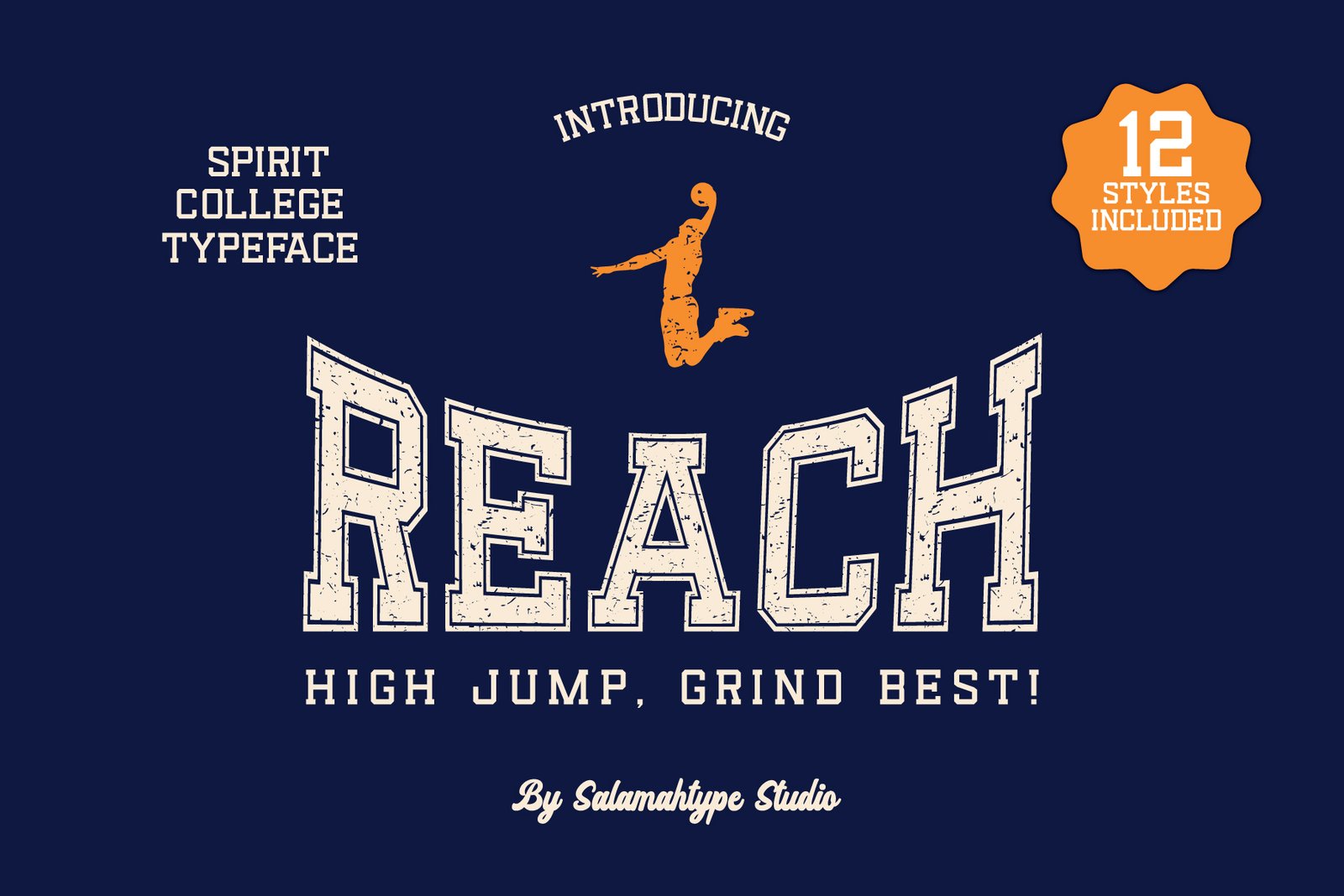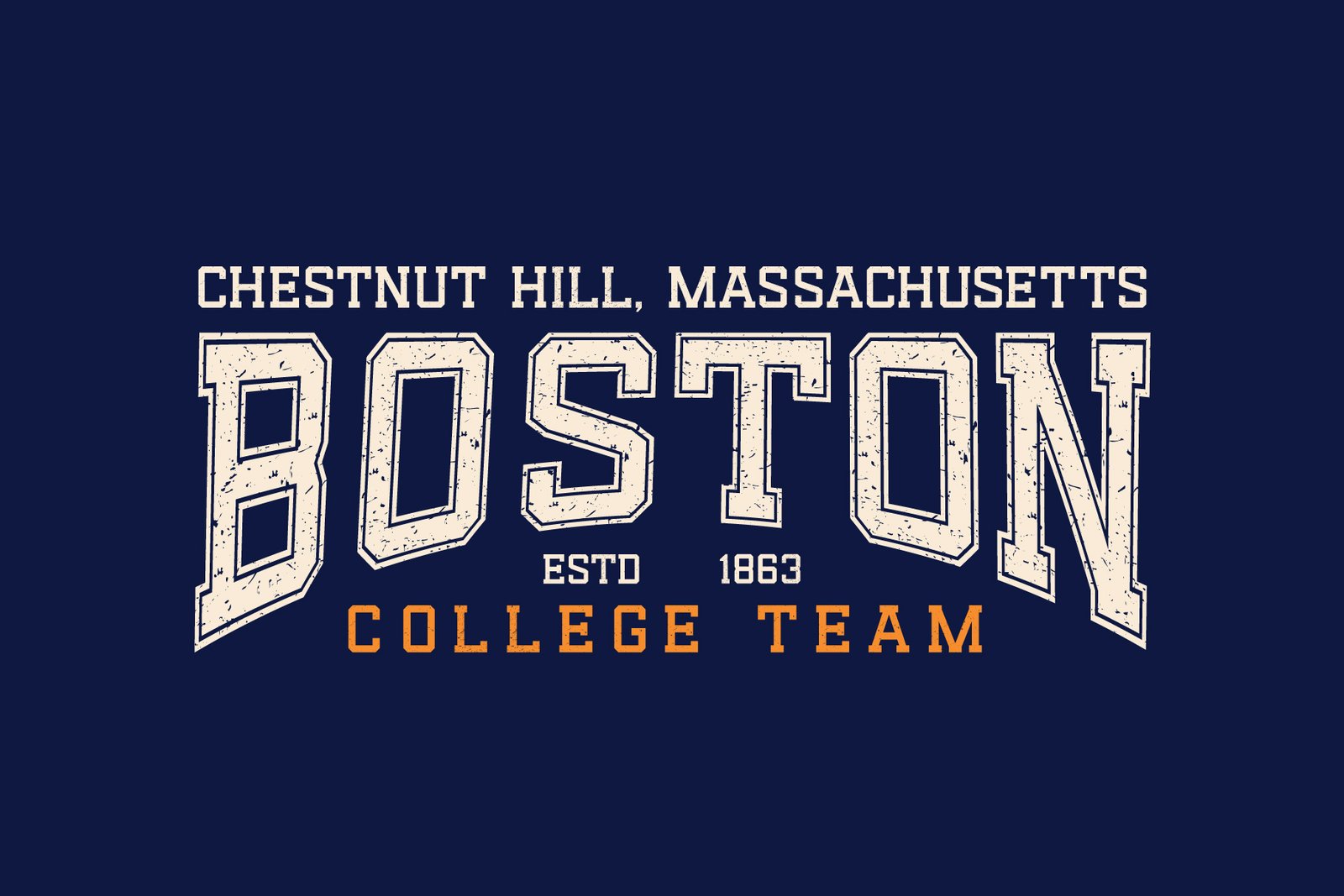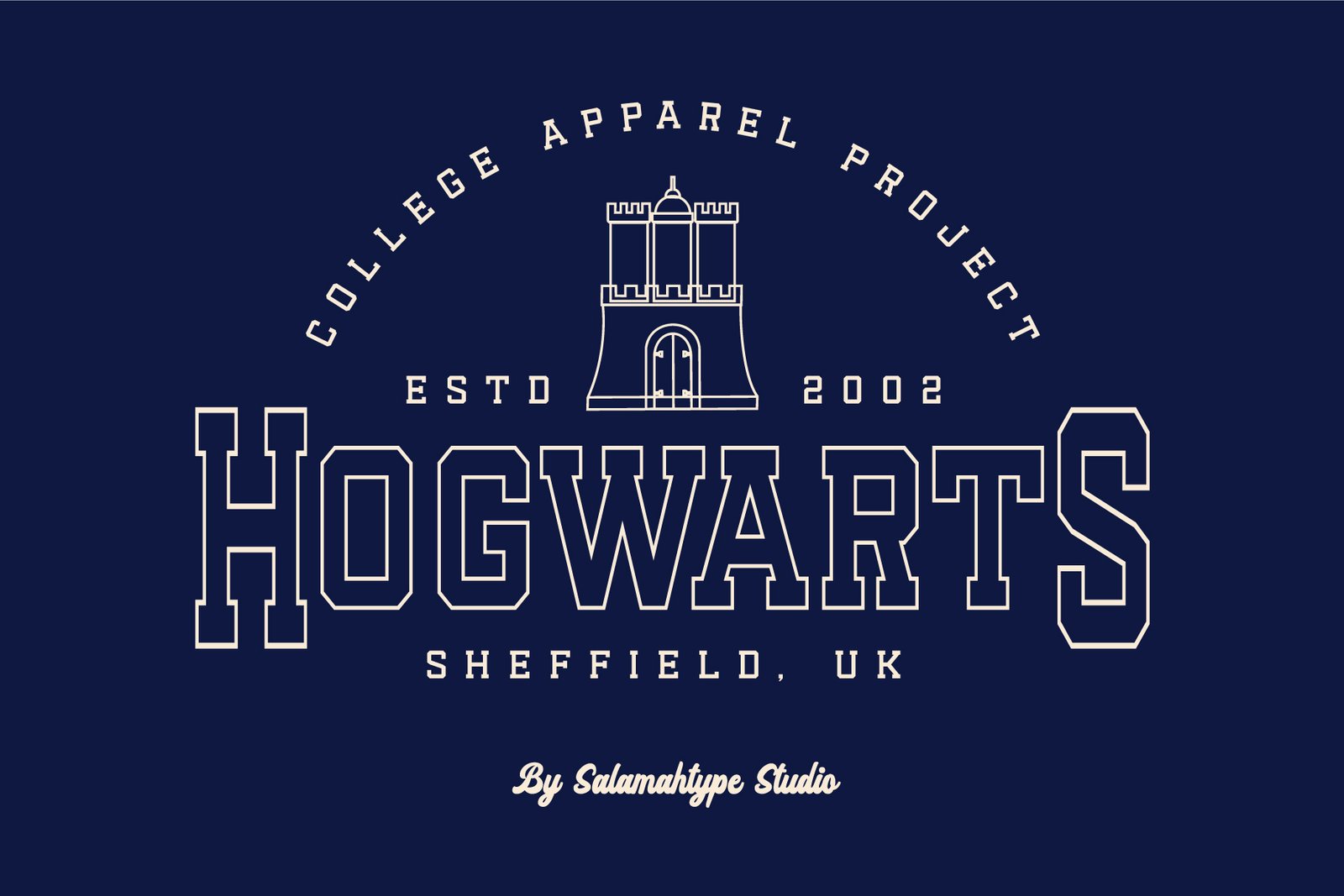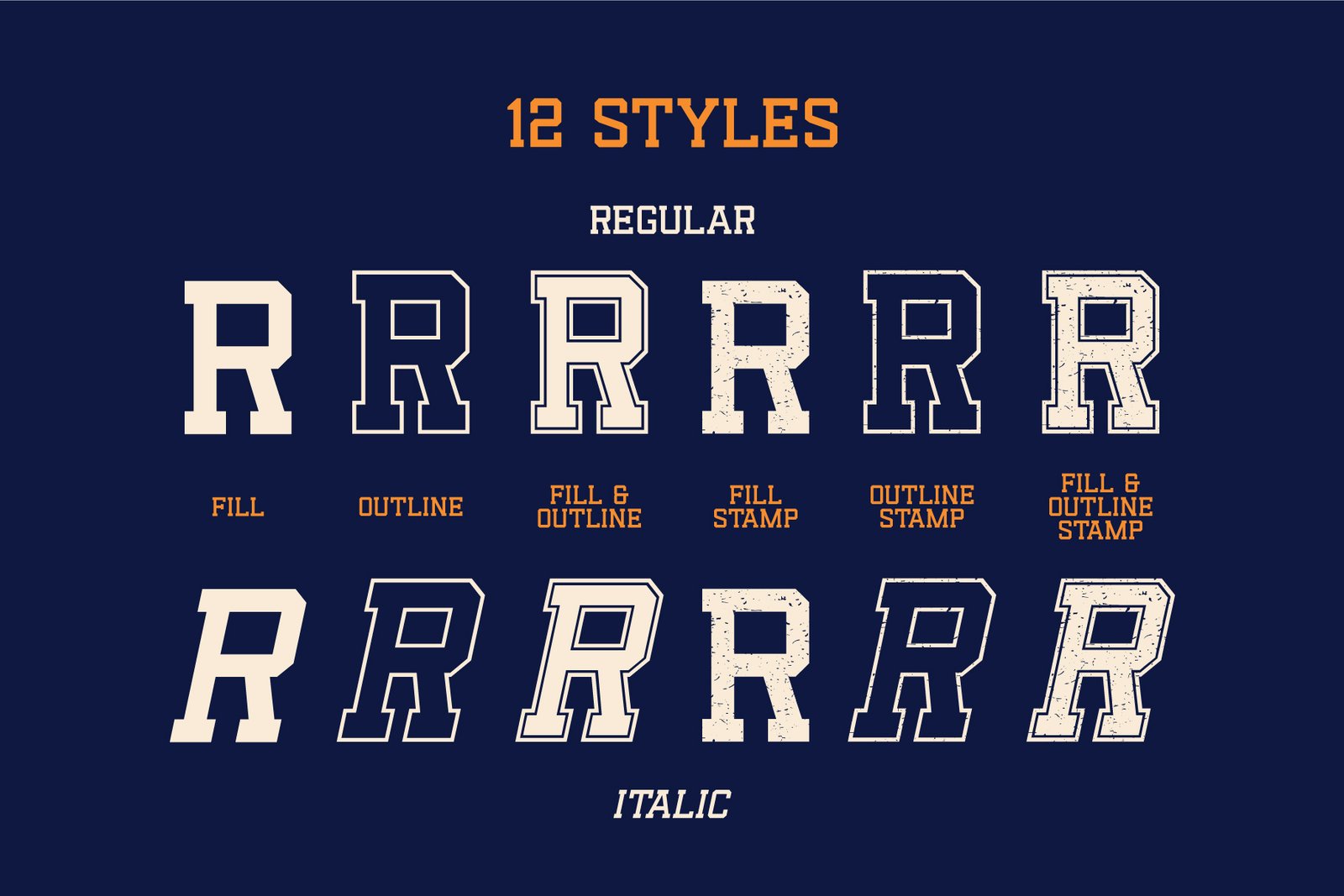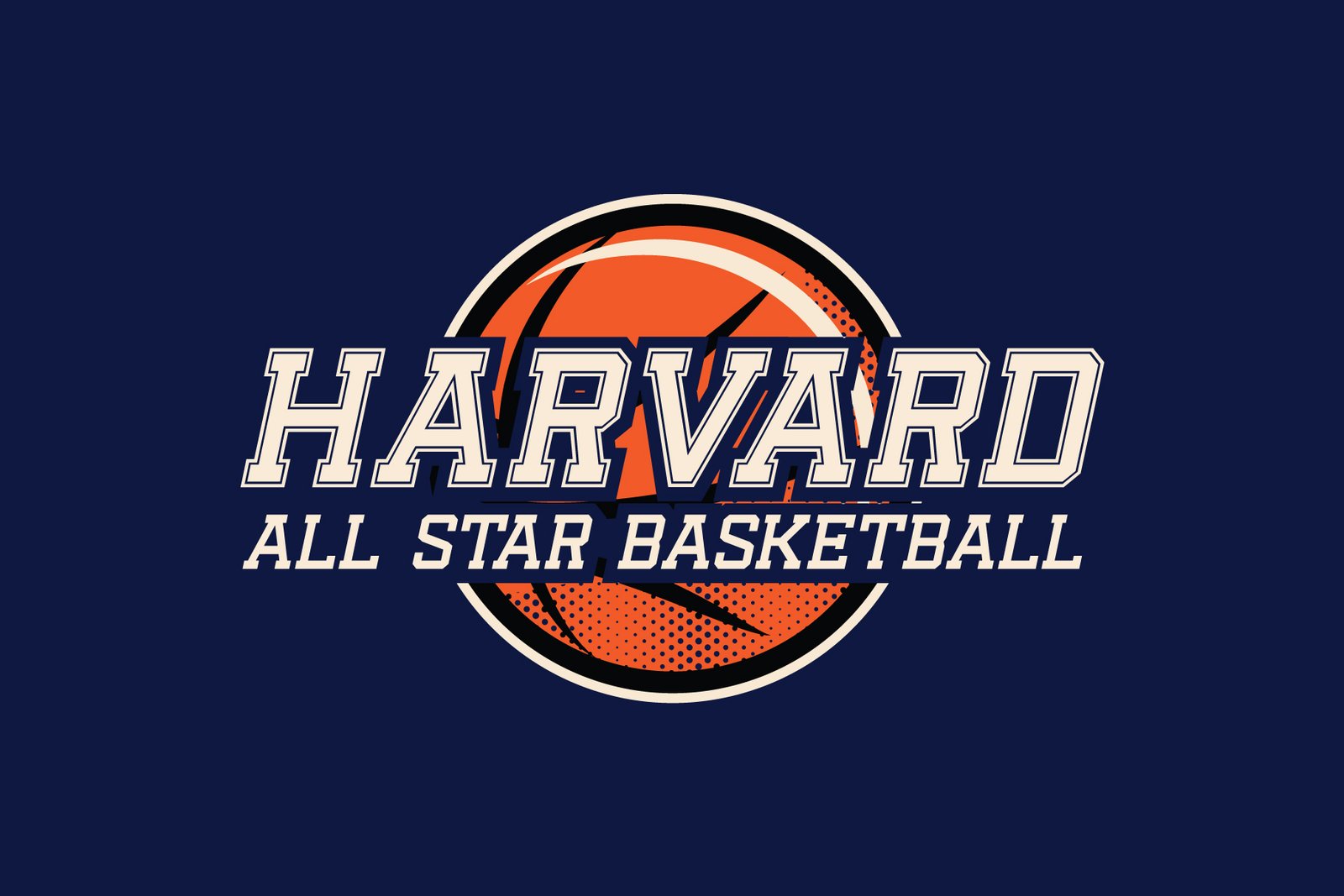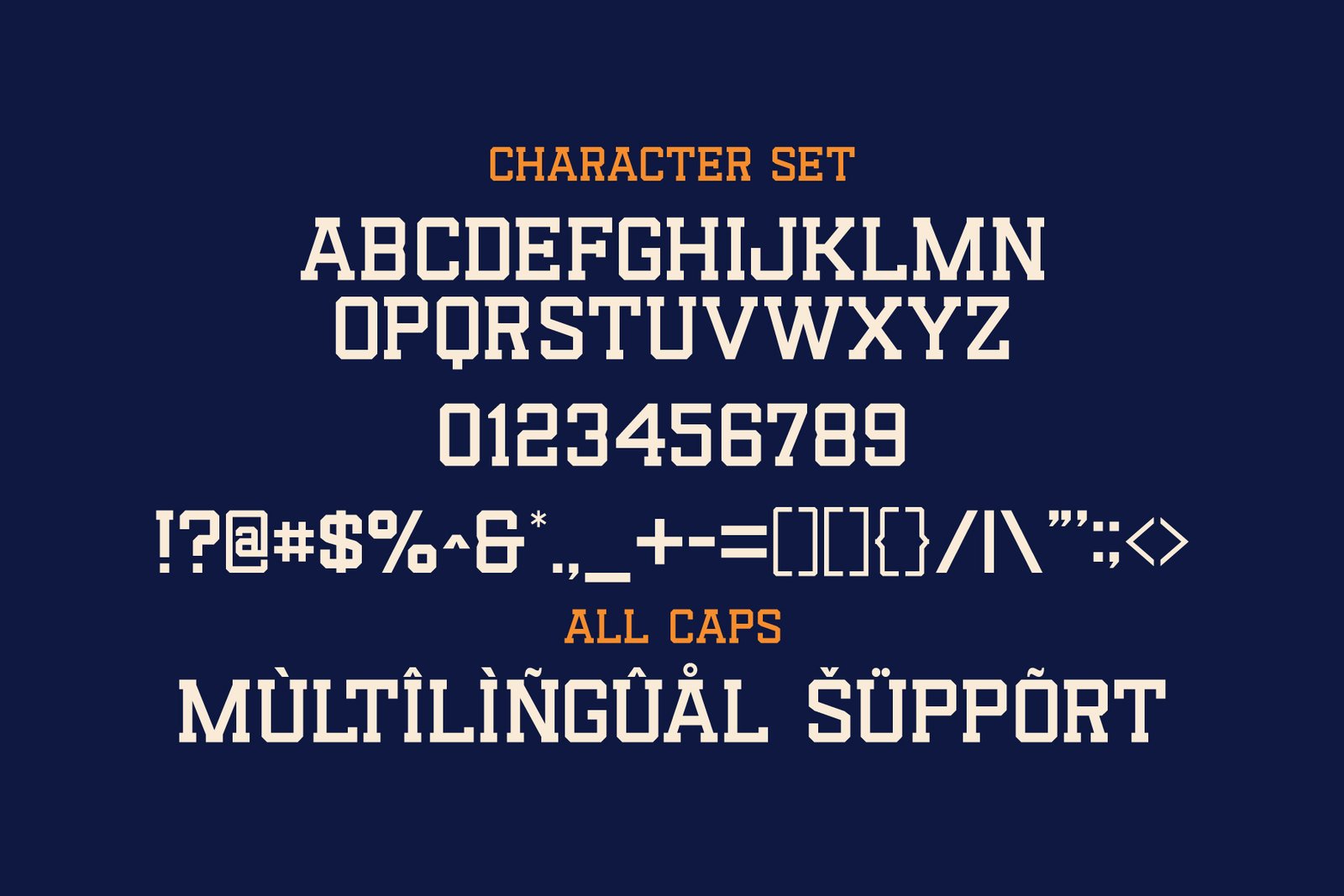
- REACH – Grunge Varsity Font
Reach – Vintage Varsity Slab Serif Display Typeface (12 Styles)
Introducing Reach, a bold vintage varsity slab serif display font inspired by classic athletic and collegiate lettering styles. Designed with strong, confident shapes and a nostalgic feel, Reach brings the perfect balance of sports spirit and vintage character to your designs.
This typeface includes 12 versatile styles — Fill, Fill Outline, Stamp, and Outline — allowing you to mix and match for dynamic and authentic varsity-inspired looks. Ideal for branding projects, sports logos, team apparel, labels, packaging, posters, and product headlines that need a bold and timeless impression.
Features:
- A–Z All Caps Characters (12 Styles Included)
- Numbers, Symbols, and Punctuation
- Multilingual Support